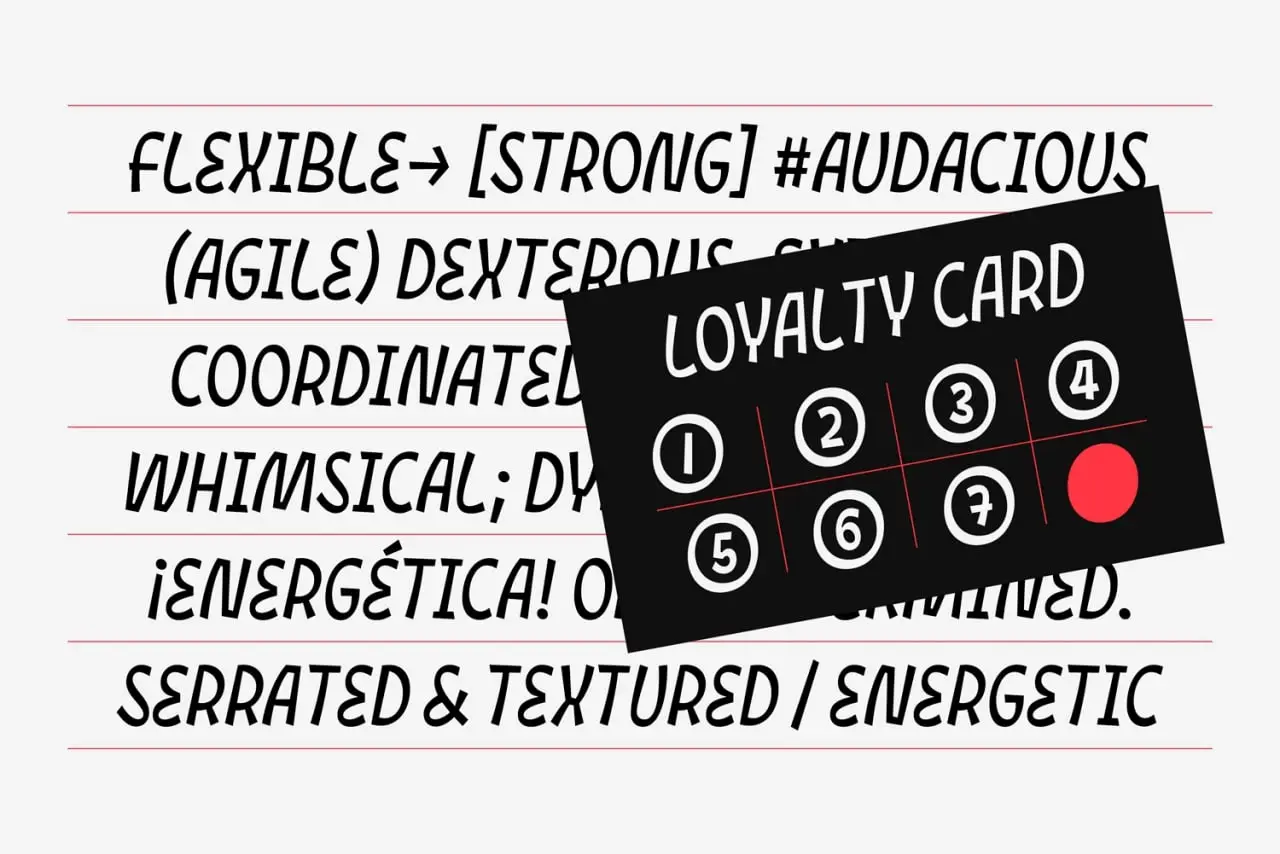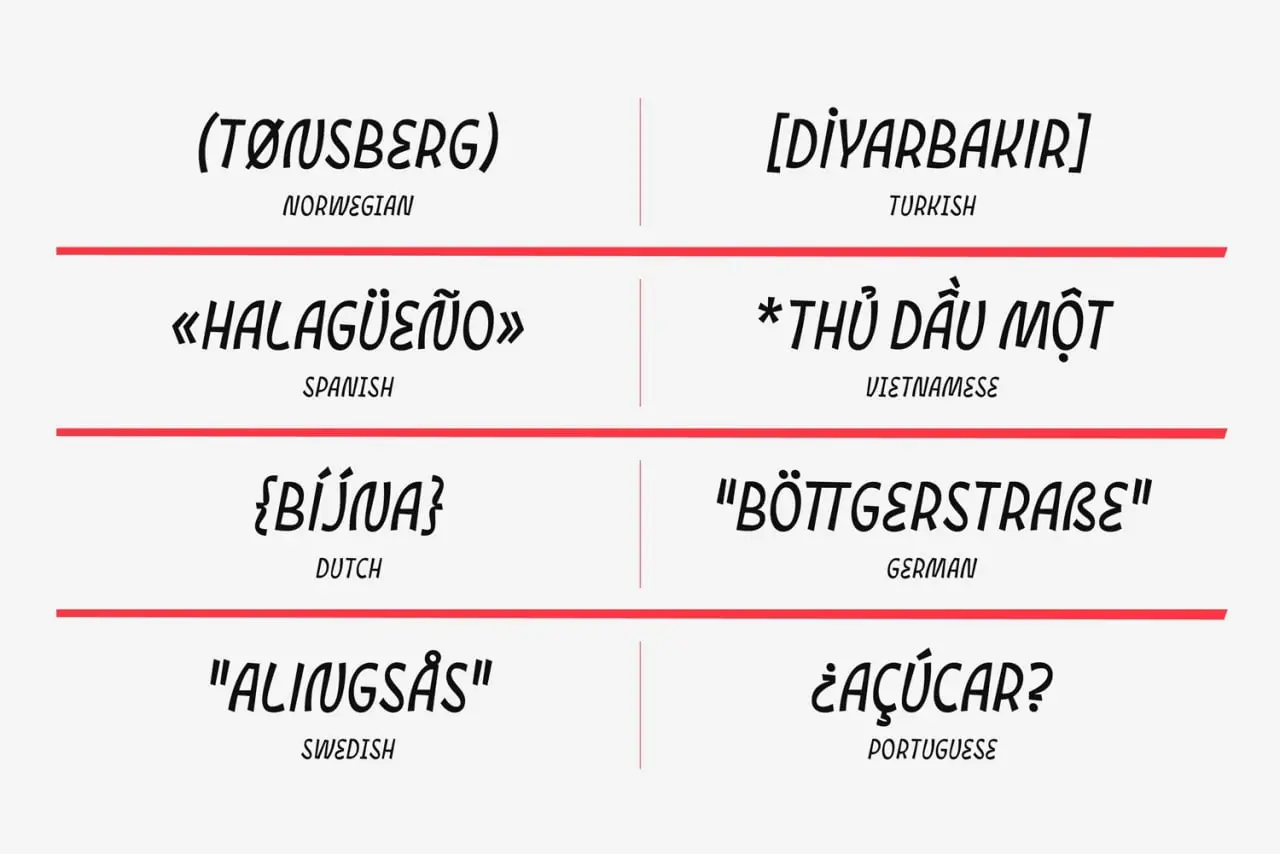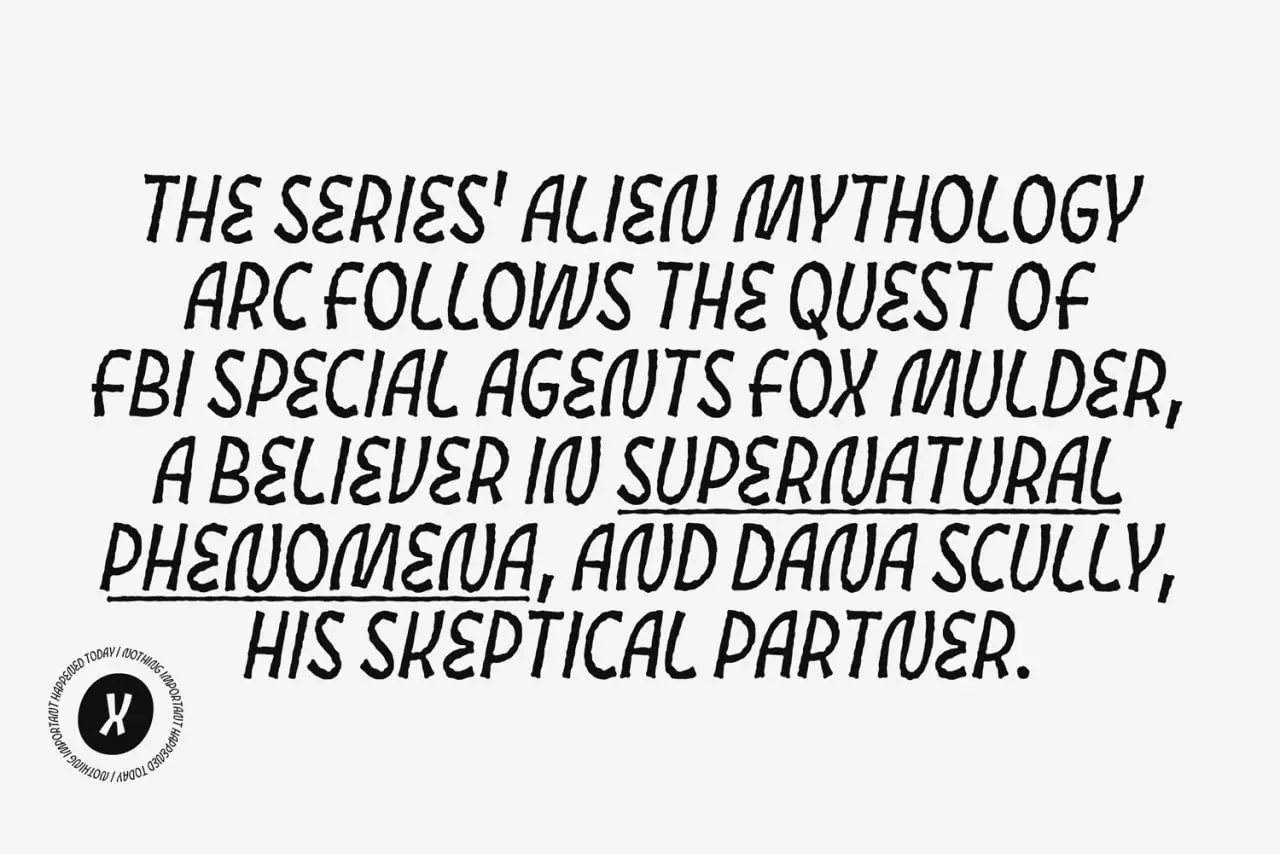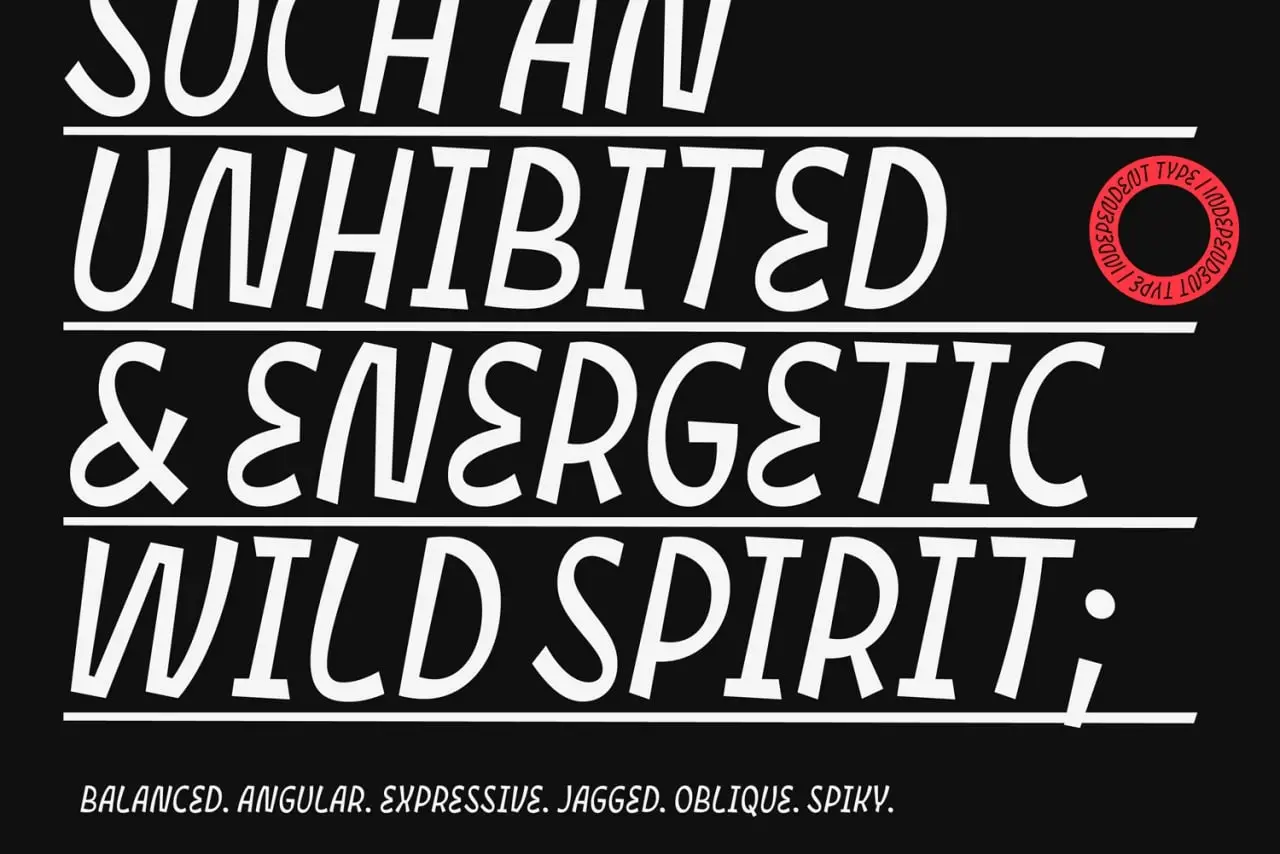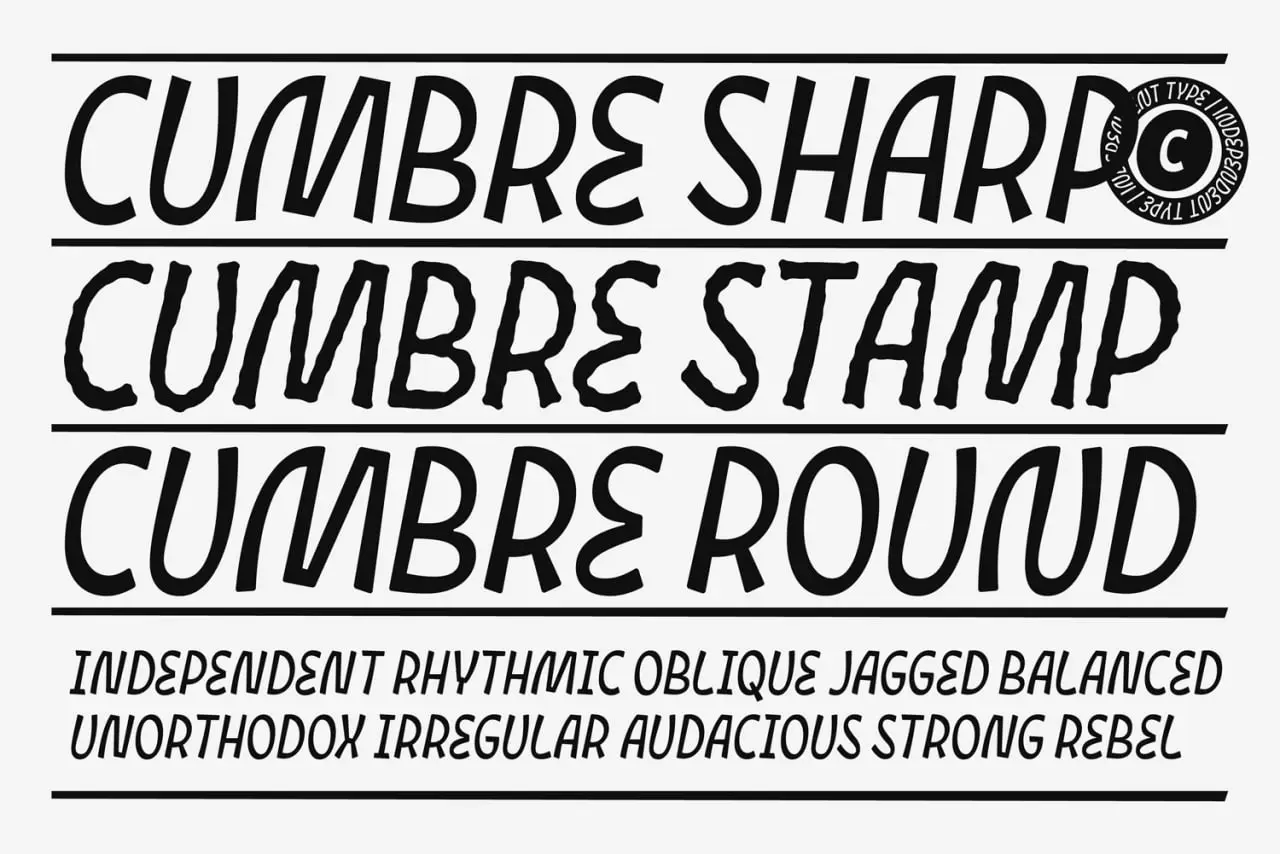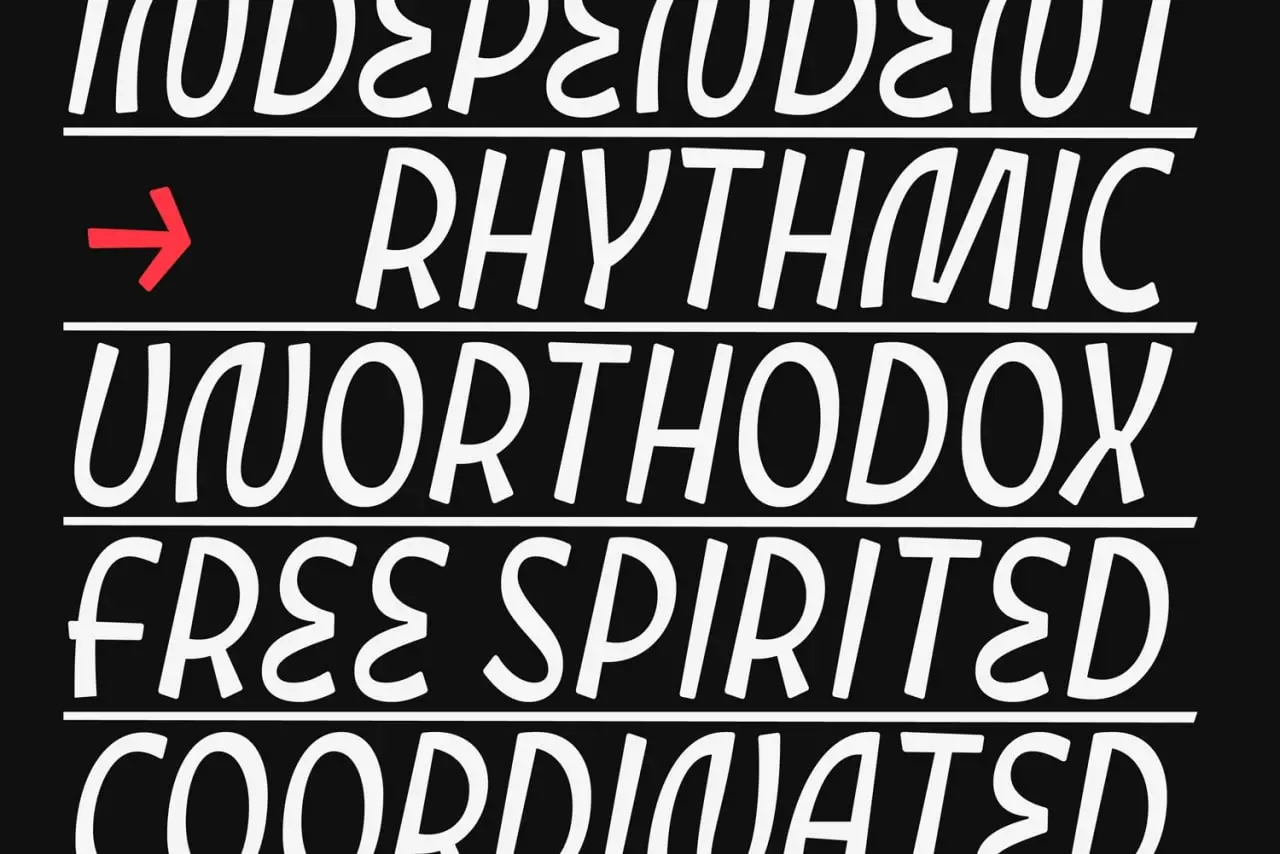
The Cumbre Font by Julia Martinez Diana is a beautifully crafted typeface that combines elegance and modernity. This font features a clean and sophisticated design, making it ideal for a variety of applications.
- Stylish uppercase and lowercase letters
- Supports a wide range of languages
- Includes numerals and punctuation
- Styles: Regular, Bold, Italic
- Perfect for branding projects, logos, and promotional materials
- Great for web design and user interfaces
- Ideal for print applications like business cards and brochures